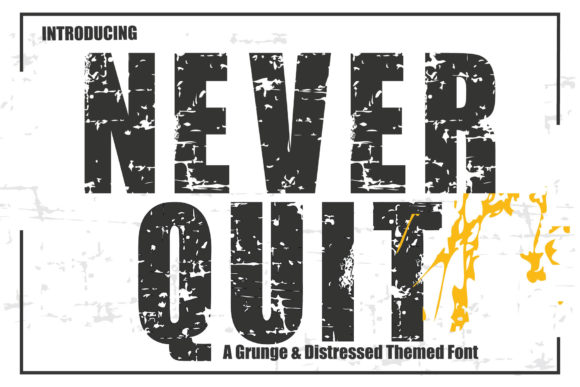
Introducing Never Quit Font, the ultimate choice for anyone seeking the best fonts for Christmas. Created by the talented KtwoP, this bold and assertive display font is here to elevate your designs to new heights. With its captivating aesthetics and limitless potential, Never Quit Font is a must-have for all your festive projects.
Imagine the joy and excitement that Christmas brings. Now, picture that feeling translated into a font. That's exactly what Never Quit Font embodies. It exudes a sense of celebration and playfulness, making it perfect for any holiday-themed design. Whether you're designing greeting cards, party invitations, or even promotional materials for your online store, this font will make your text come alive with the spirit of Christmas.
But Never Quit Font isn't just limited to holiday designs. Its versatility allows it to shine in various other contexts as well. Are you working on a project related to speed? Perhaps you're designing a sports-themed logo or creating artwork for a racing event. Look no further than Never Quit Font. Its bold and dynamic character will convey a sense of movement and adrenaline, giving your designs an edge that sets them apart from the competition.
One of the remarkable features of Never Quit Font is its endless variations. With this font, you have the freedom to experiment and explore different styles and effects. From bold and impactful to elegant and sophisticated, the possibilities are truly limitless. Let your creativity run wild as you mix and match the various weights and styles available, ensuring that your designs are as unique as you are.
Not only does Never Quit Font captivate visually, but it also delivers on functionality. Its carefully crafted design ensures legibility, even at smaller sizes. Your message will always shine through, while the font itself becomes a striking visual element that commands attention. Embrace the power of typography and make a lasting impression with the help of Never Quit Font.
In conclusion, if you're in search of the best fonts for Christmas or seeking to add a touch of speed and energy to your designs, look no further than Never Quit Font. This bold and beautiful display font, created by KtwoP, will elevate your projects with its captivating aesthetics and endless variations. Let the spirit of Christmas and the thrill of speed inspire your creativity. Download Never Quit Font today and embark on a design journey like never before.